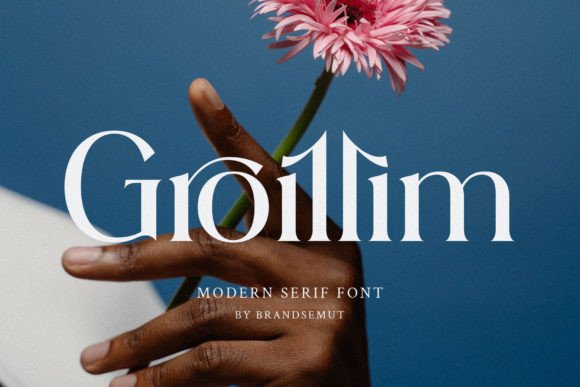
Introducing Groillim: The Epitome of Serif Elegance for Your Digital Canvas!
Indulge in the timeless allure of Groillim, an exquisite serif typeface meticulously crafted to elevate your digital presence. Its clean lines and graceful curves dance harmoniously, adding an air of sophistication to every design it graces.
Unleash the Power of Your Words!
With Groillim, your message will captivate and inspire, leaving an unforgettable impression on your audience. Its versatile nature shines through, making it an ideal choice for a myriad of creative endeavors:
- Headlines that command attention
- Logos that exude professionalism
- Branding that conveys your unique identity
- Magazines that resonate with readers
- Packaging that entices and allures
- Invitations that evoke elegance
Express Yourself with Flair!
Elevate your Instagram bio to new heights with Groillim's captivating presence. Its distinctive character adds a touch of intrigue and exclusivity, setting your profile apart from the mundane.
Make Your Mark with Confidence!
Embrace the allure of Groillim today and transform your digital creations into masterpieces that captivate and inspire!